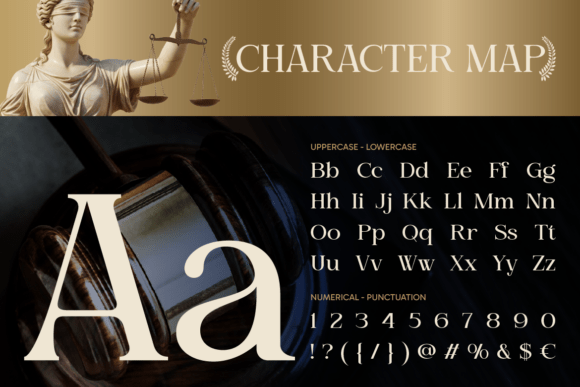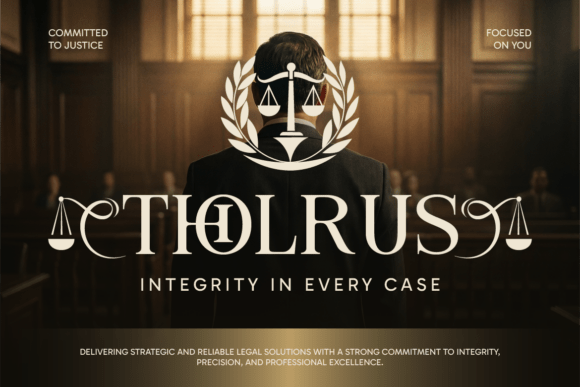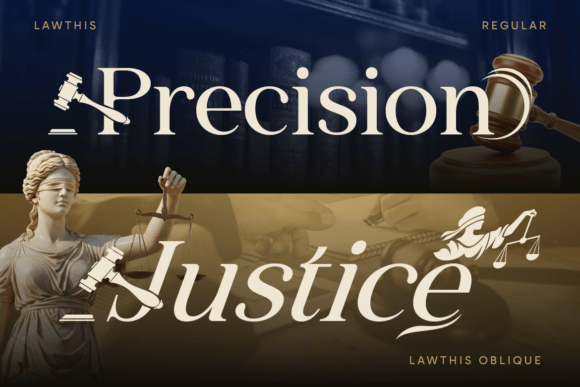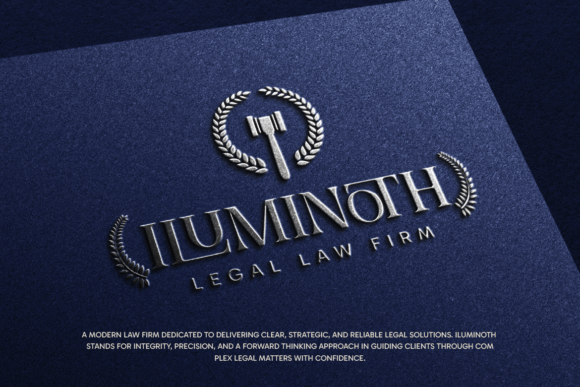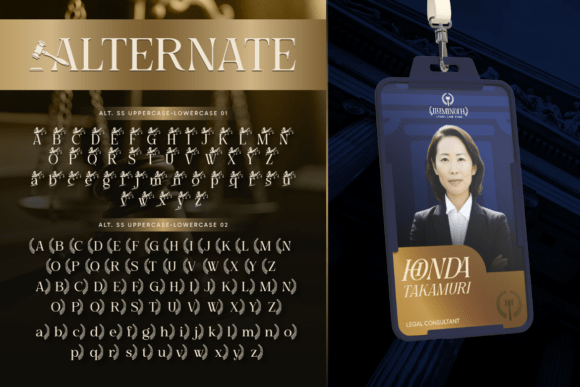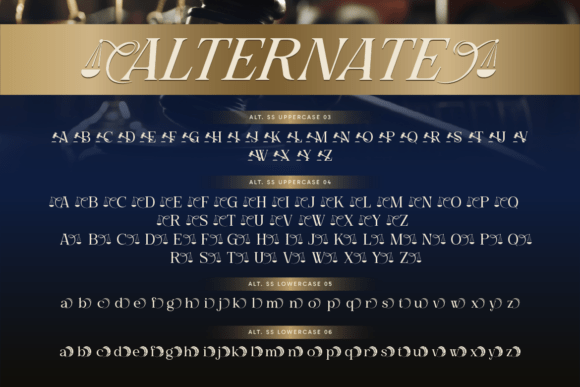
Introduction to Lawthis Font
In a world where trust, authority, and professionalism matter the most, your typography should speak just as confidently as your brand.
Lawthis is an elegant serif display font crafted specifically for legal, corporate, and luxury branding Inspired by the timeless aesthetic of courtrooms, justice symbols, and classic law firm identities, this font delivers a strong and refined presence in every letterform.
Key Features of Lawthis Font
Why Choose Lawthis Font?
Lawthis Font offers exceptional quality and versatility, making it a valuable addition to your design toolkit. Whether you’re creating for personal projects or commercial use, Lawthis Font delivers professional results.